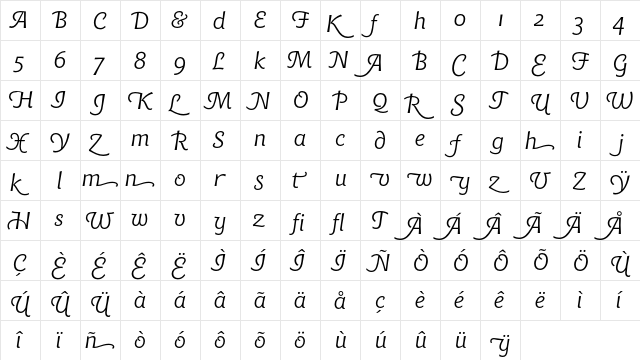
Bitstream Chianti Italic Swash Font Preview
Bitstream Chianti Italic Swash
Design Context for Bitstream Chianti Typeface
Bitstream Chianti flows with the natural rhythm of handwritten lettering, making it ideal for designs that call for warmth and personal expression.
Font Pairing: Combine Bitstream Chianti with a simple geometric sans for maximum contrast — the tension between flowing curves and clean structure is a classic typographic pairing.
Pro Tip: Use Bitstream Chianti for short runs of text — names, titles, or taglines. Extended body copy in script faces tires the eye quickly.